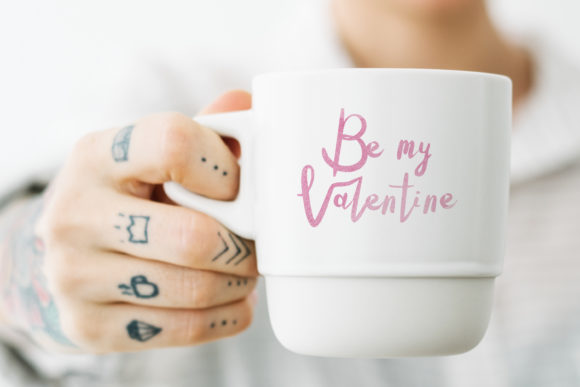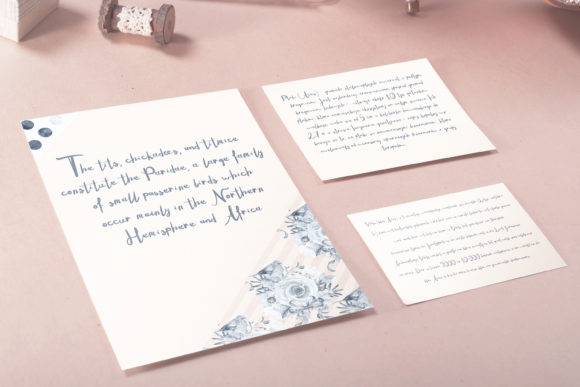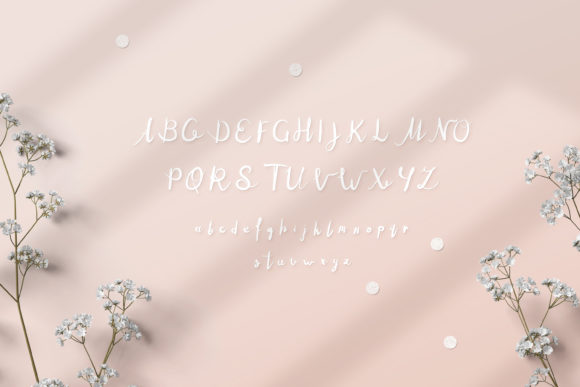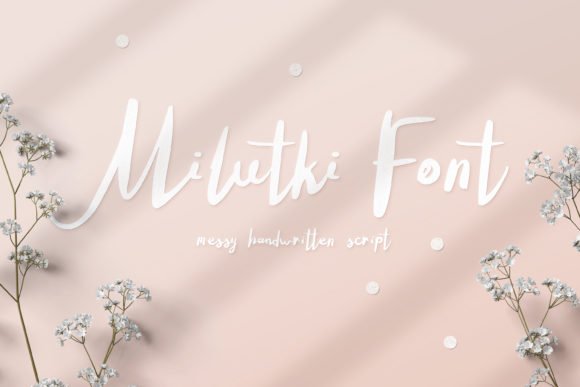
Introduction to Milutki Font
Milutki is a relaxed and distinct handwritten font, created with the help of an outstanding brush pen.
Its versatile style makes it incredibly fit for a wide range of designs .
Key Features of Milutki Font